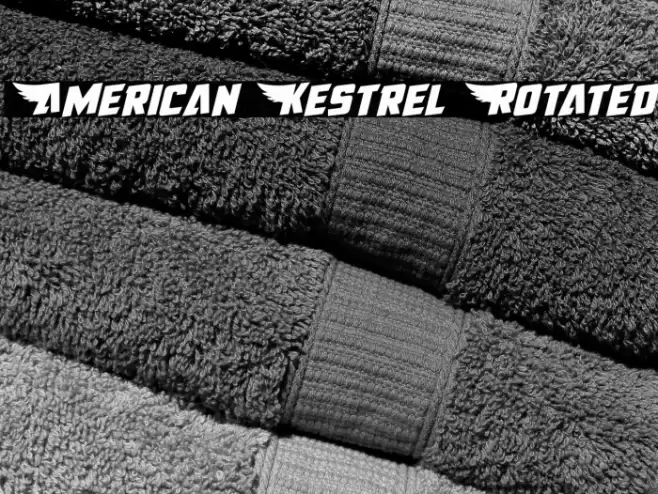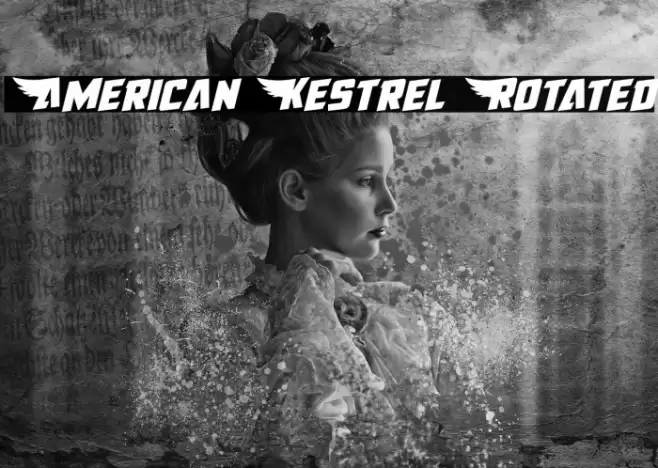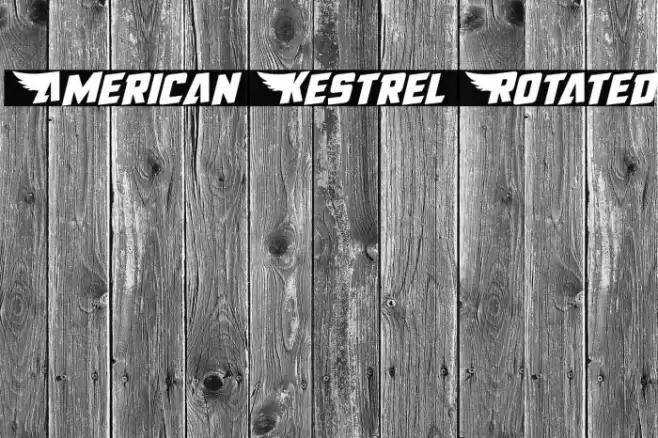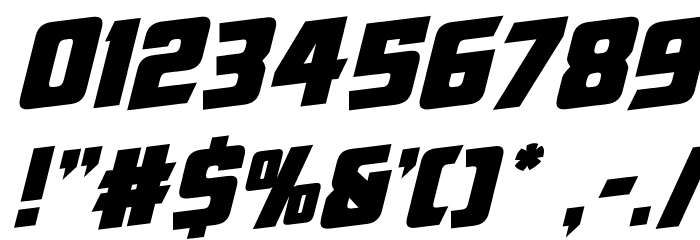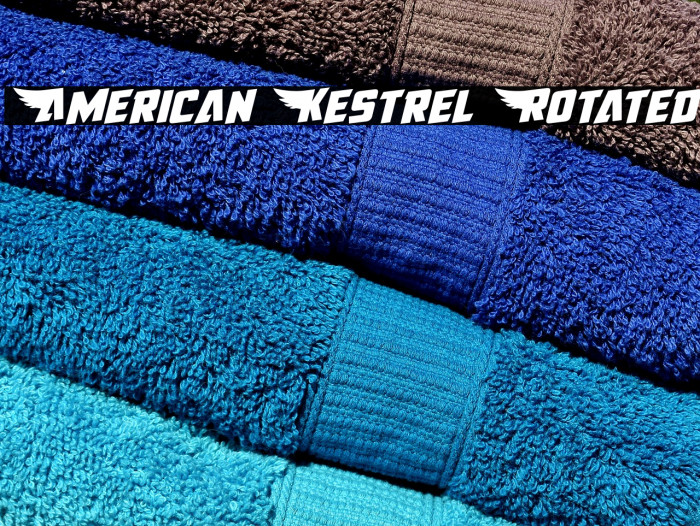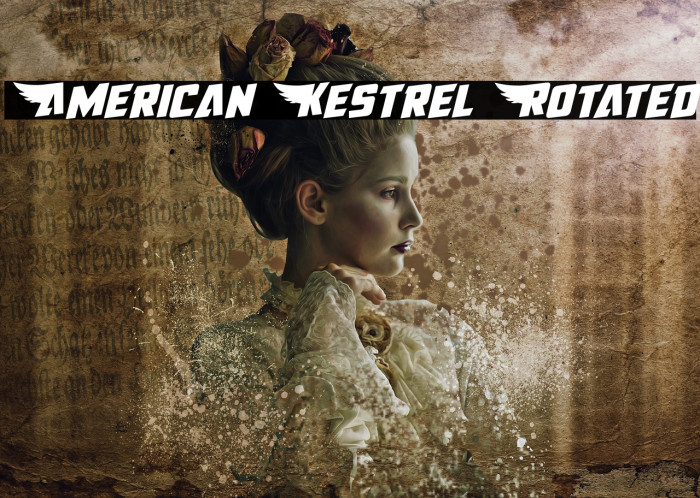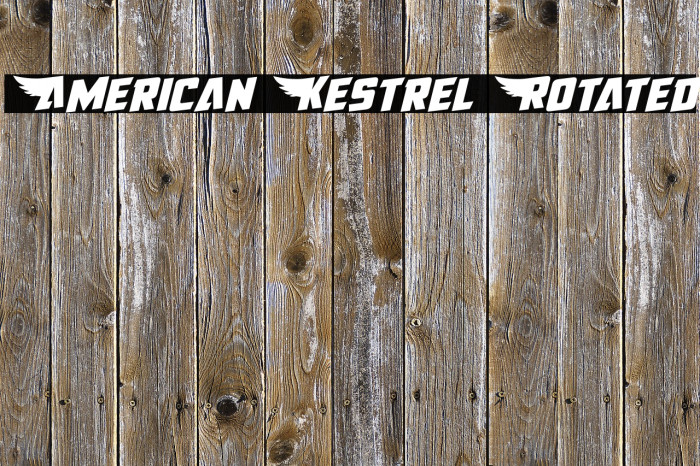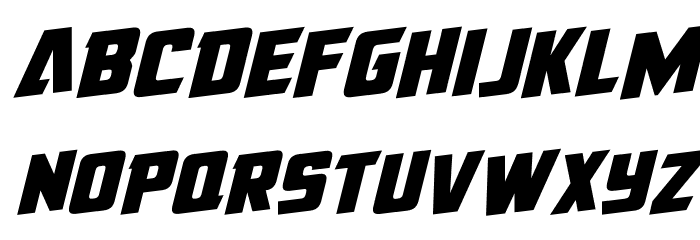
American Kestrel Rotated Font
American Kestrel Rotated Description
This dynamic and bold font features a striking design with sharp angles and a sense of motion, reminiscent of speed and agility. The uppercase letters are particularly impactful, with a slanted orientation that suggests forward movement. The font's unique characteristic is the incorporation of wing-like extensions on certain characters, adding a distinctive flair. The numbers and special characters maintain the same boldness and angularity, ensuring consistency across all elements. This font is ideal for projects that require a sense of energy and modernity.
A bold, angular font with a dynamic, forward-leaning style and wing-like extensions from Uncategorized fonts.